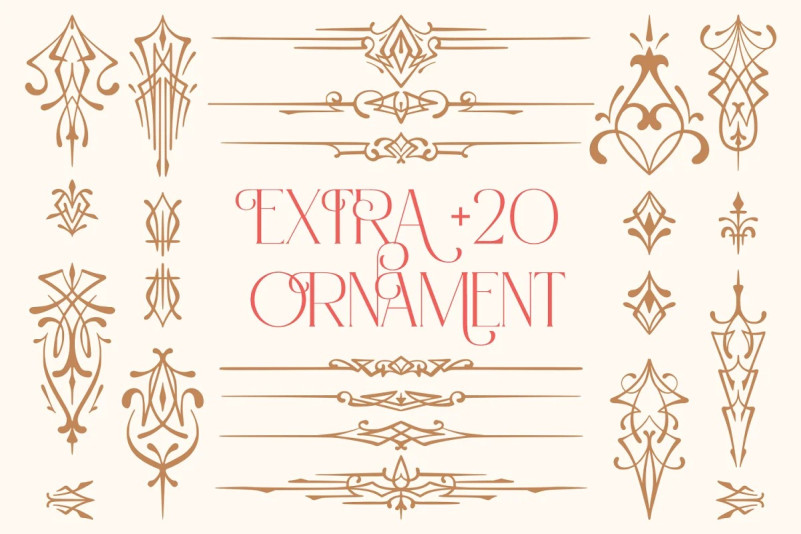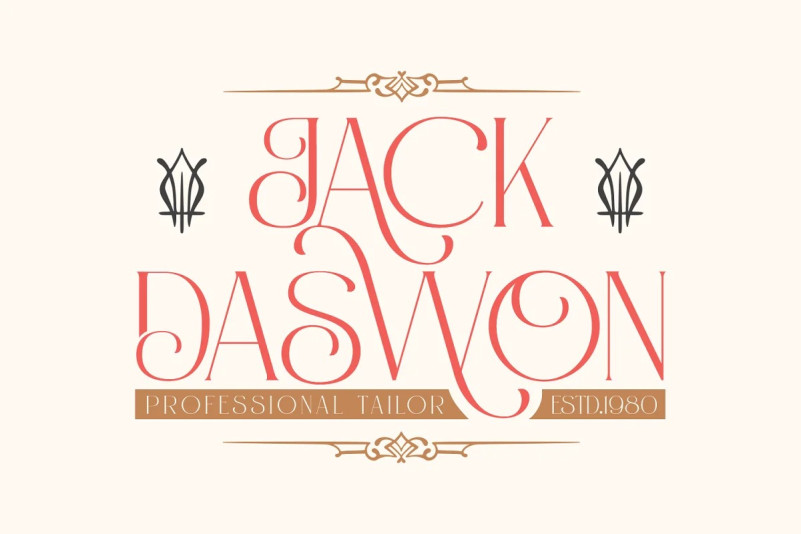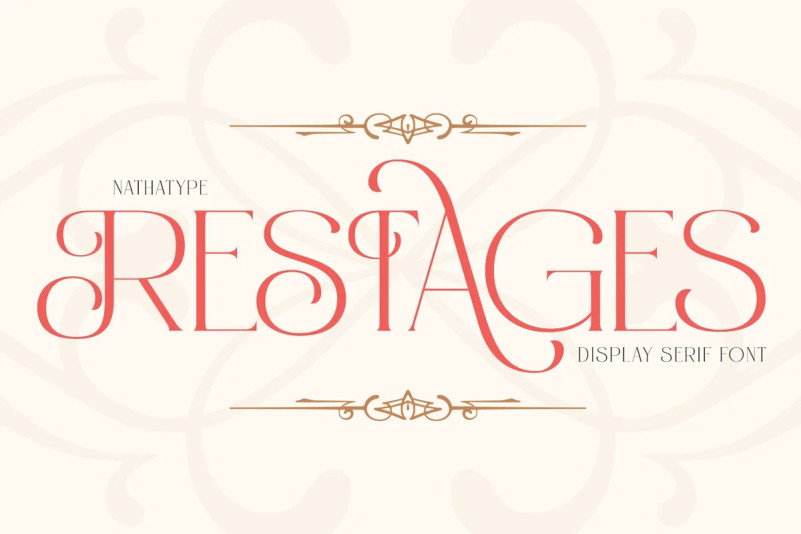
Restages Font
Restages Font is a capitalized display serif font with less thickness for an effortless readability. This font type is perfect for formal contents because of its stylish, elegant characters to strengthen the impressions delivered. Furthermore, this font is truly legible due to its simple, regular serif forms to ease readers to recognize each letter correctly.